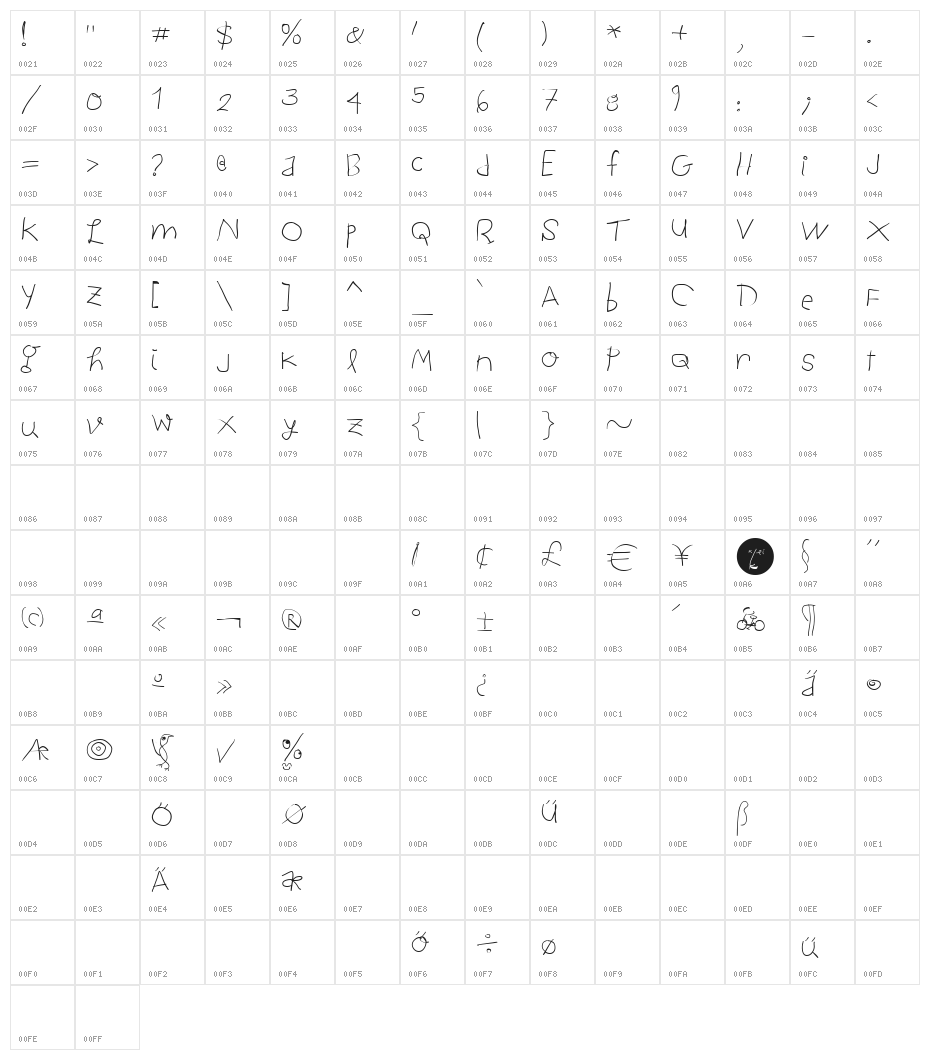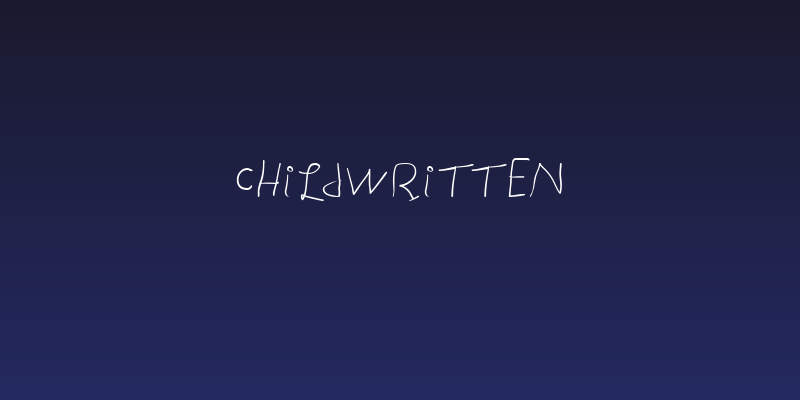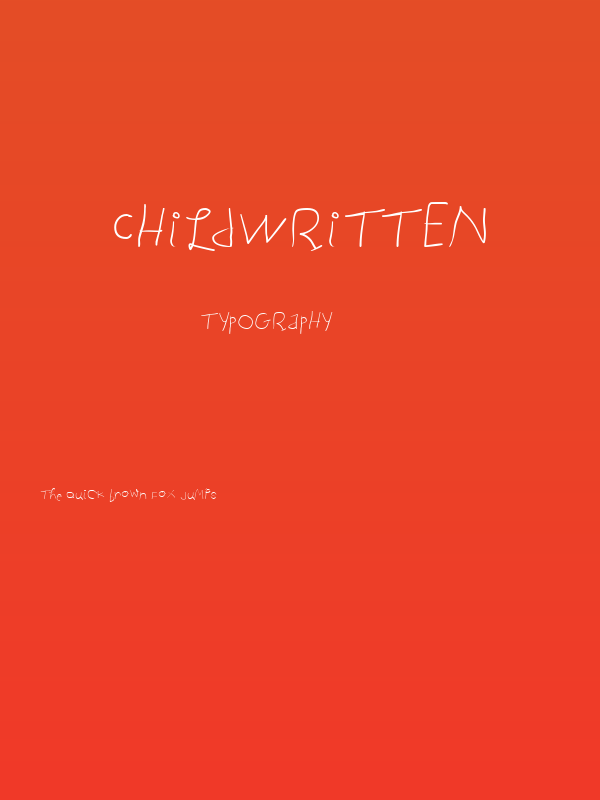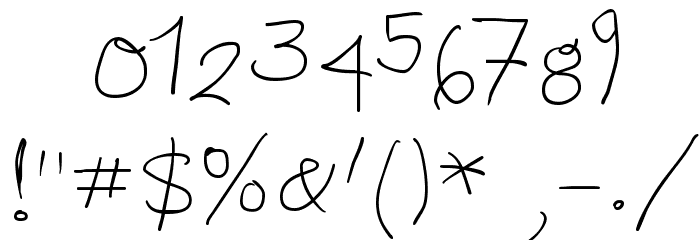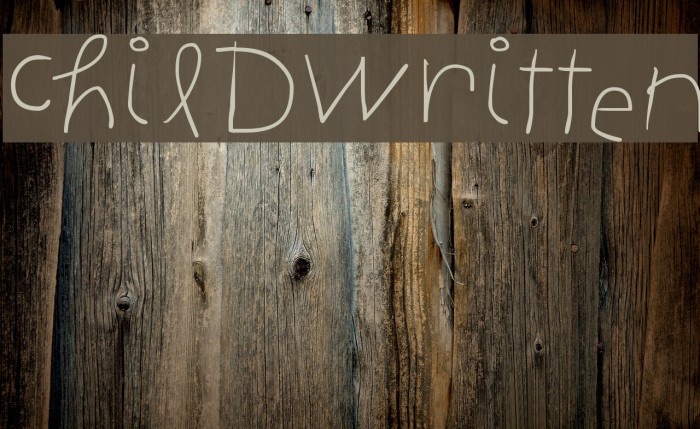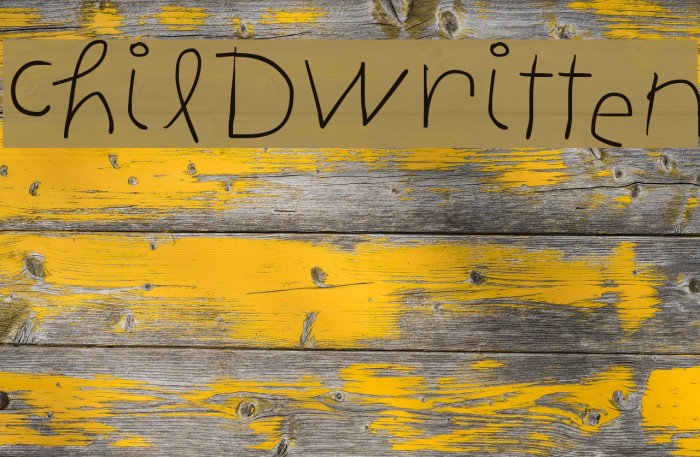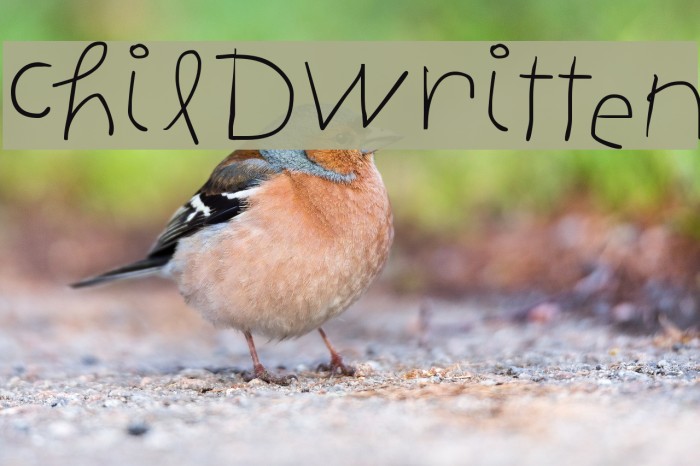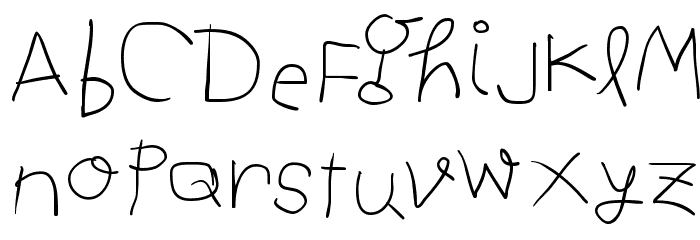
ChildWritten Font
ChildWritten Description
This playful and whimsical font mimics the carefree and spontaneous style of a child's handwriting. The letters are unevenly sized and spaced, with a mix of straight and curved lines that give it a lively and informal appearance. The uppercase and lowercase letters are distinct yet harmonize well together, maintaining a consistent flow throughout the alphabet. Numbers and special characters follow the same playful theme, adding to the font's charm. This font's unique style makes it ideal for projects that require a touch of innocence and creativity.
| Proposed Projects | Ideal for children's books, educational materials, playful branding, and creative invitations. |